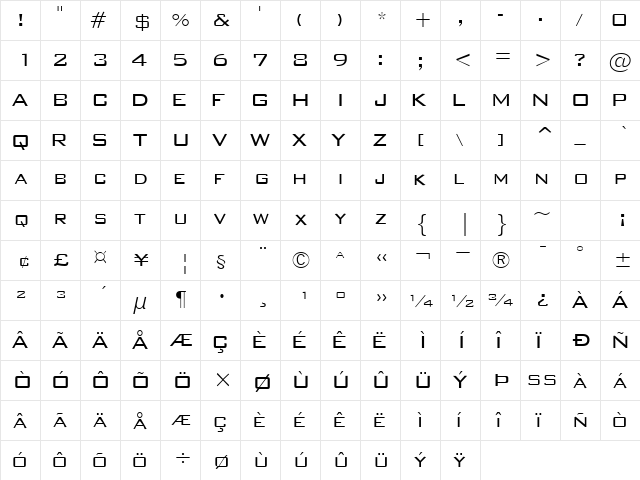
FortisLightSCapsSSK Regular
FortisLightSCapsSSK offers clean, dependable letterforms without strong stylistic allegiance, making it a practical choice for designers who need flexibility. Its slender proportions lend an understated elegance to any composition.